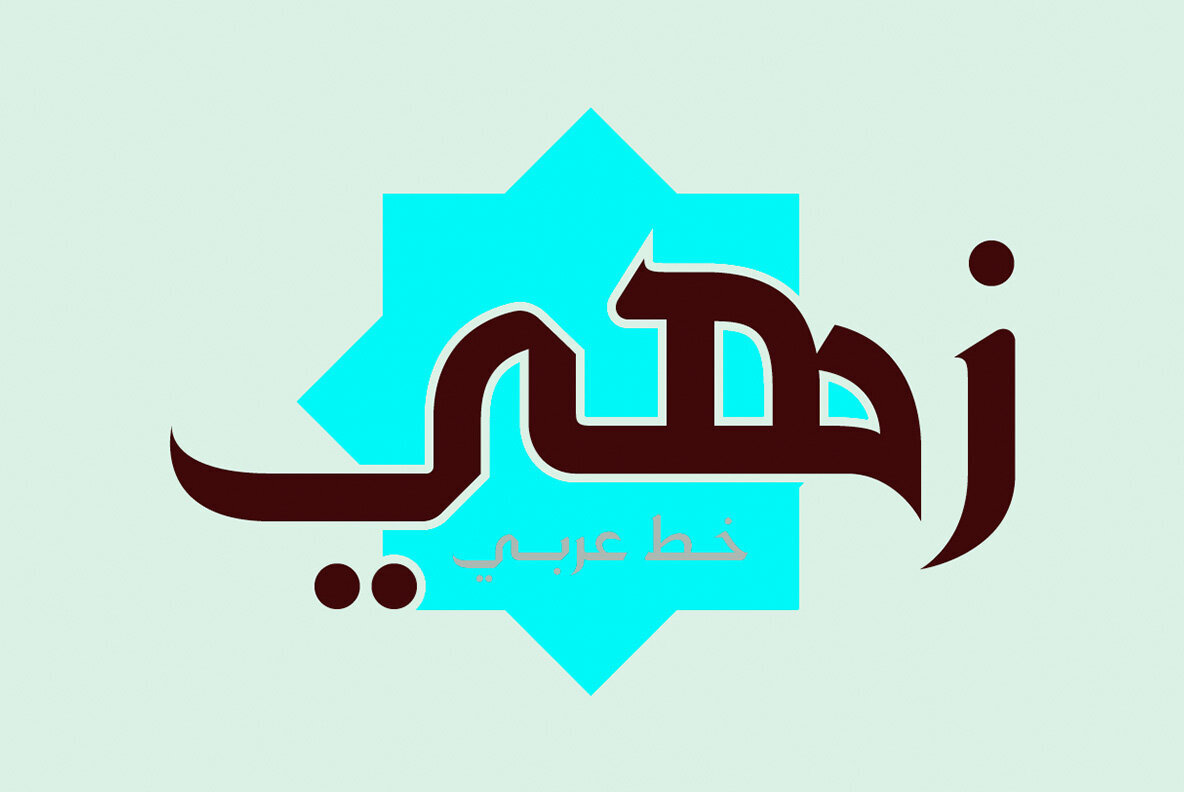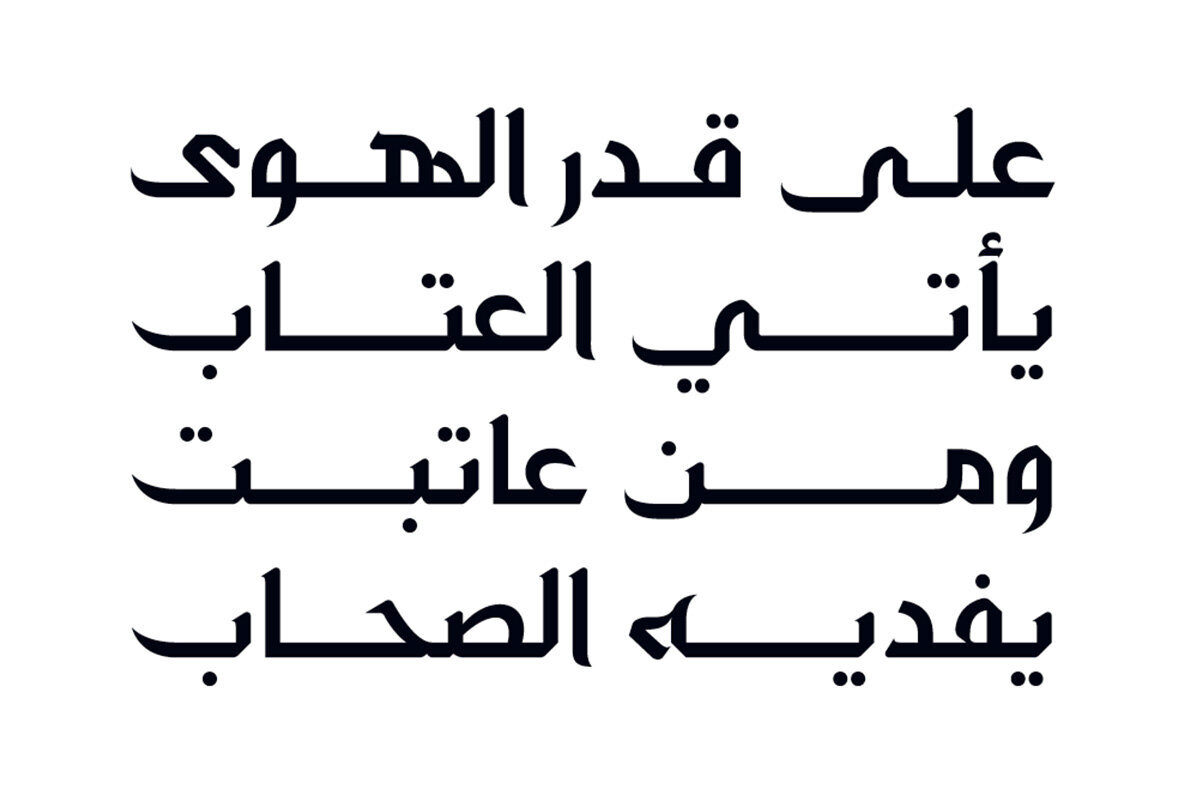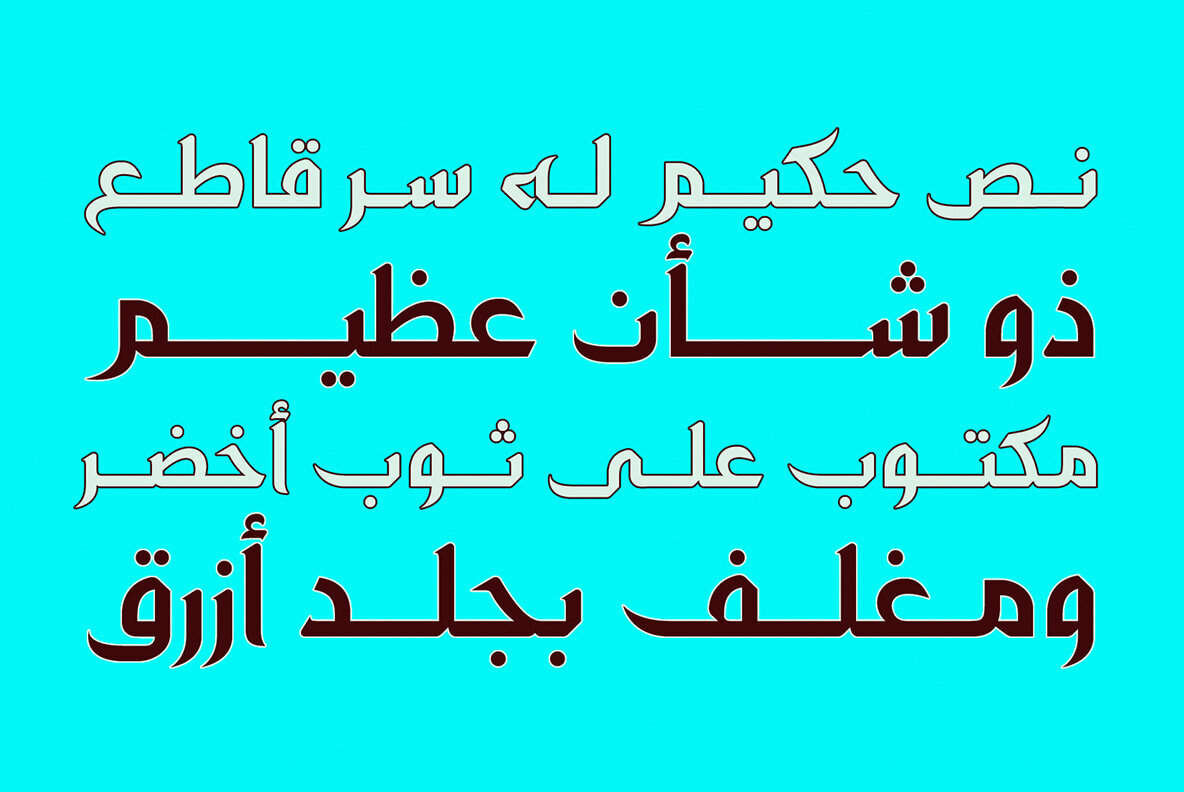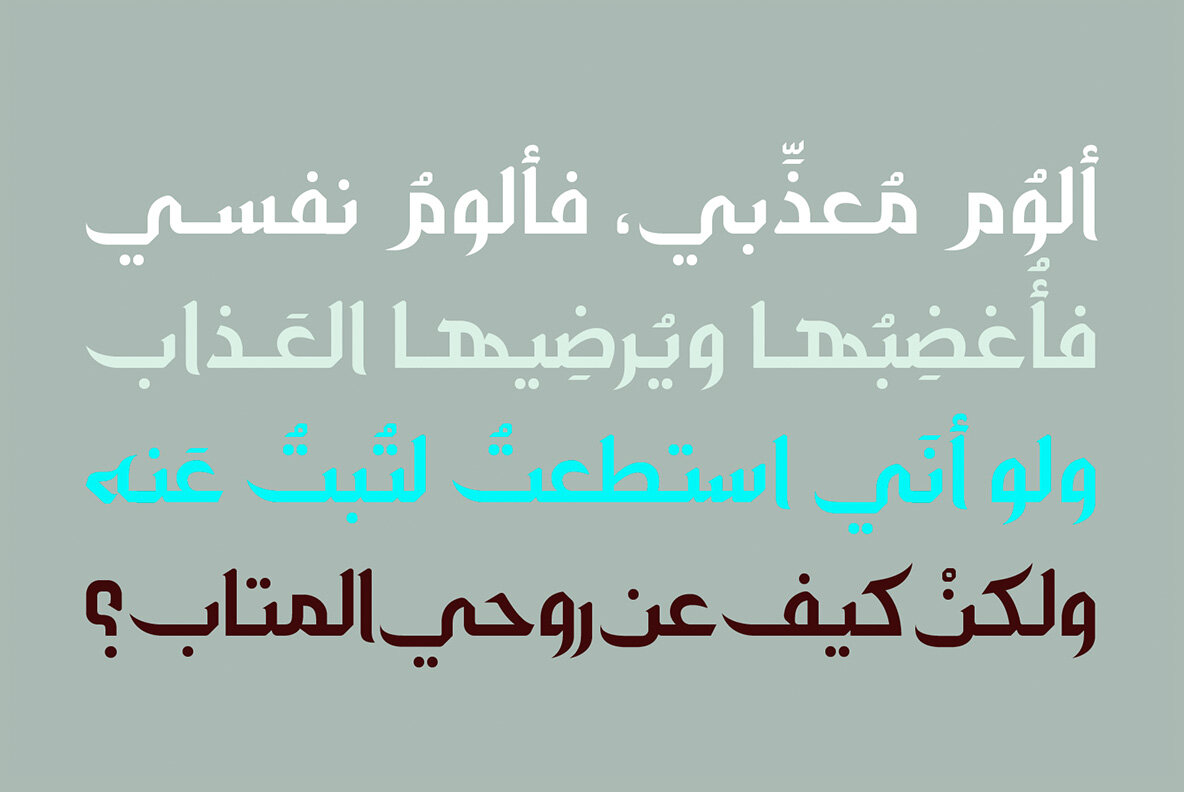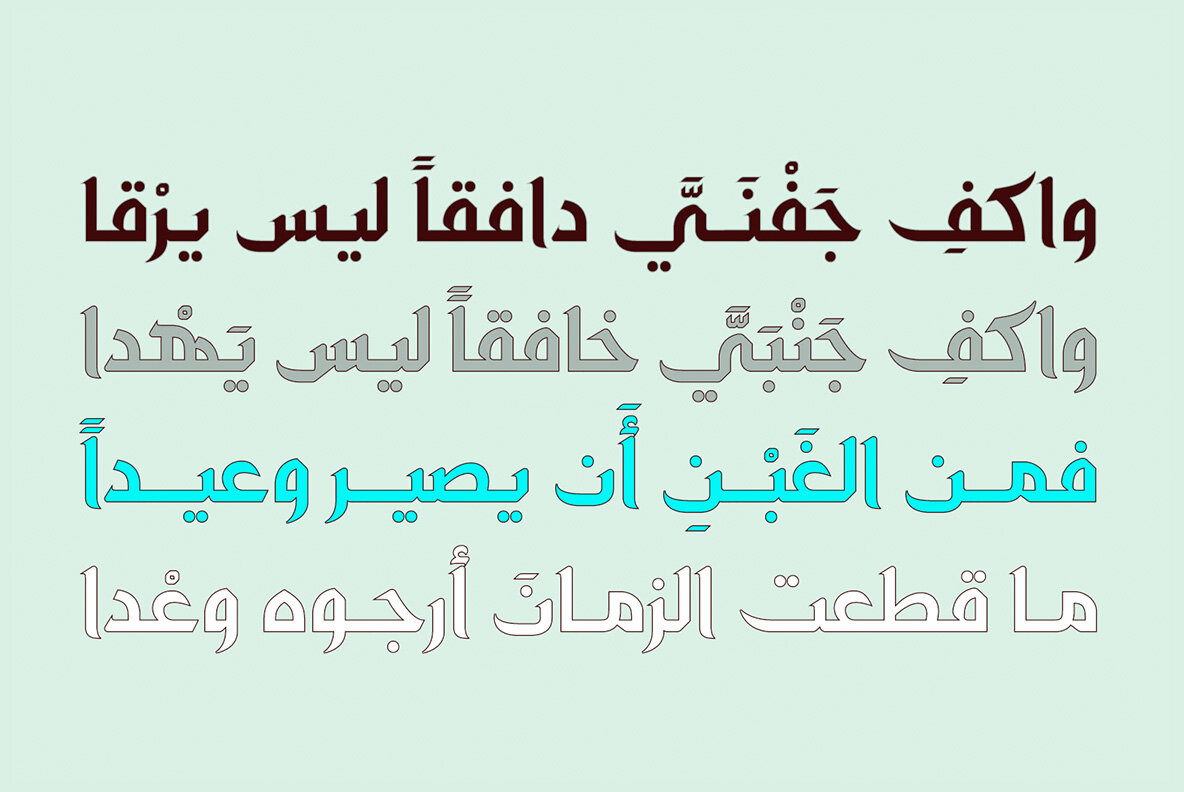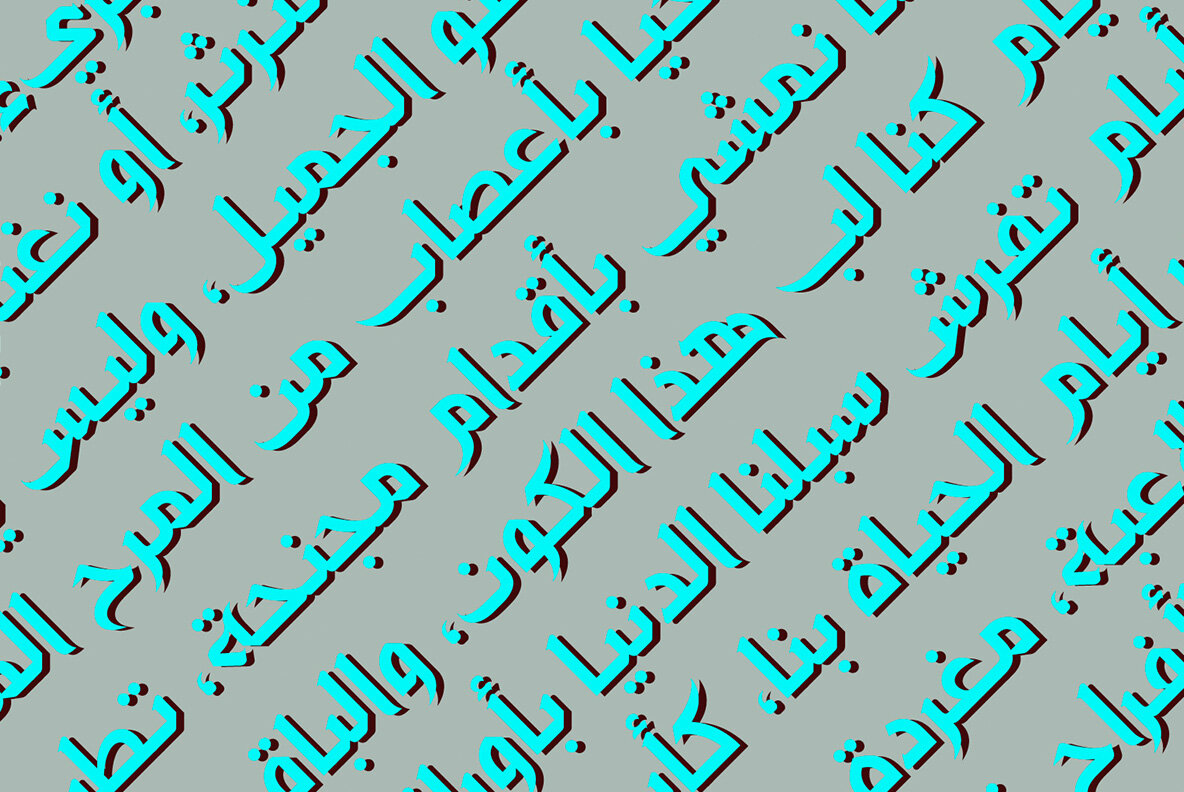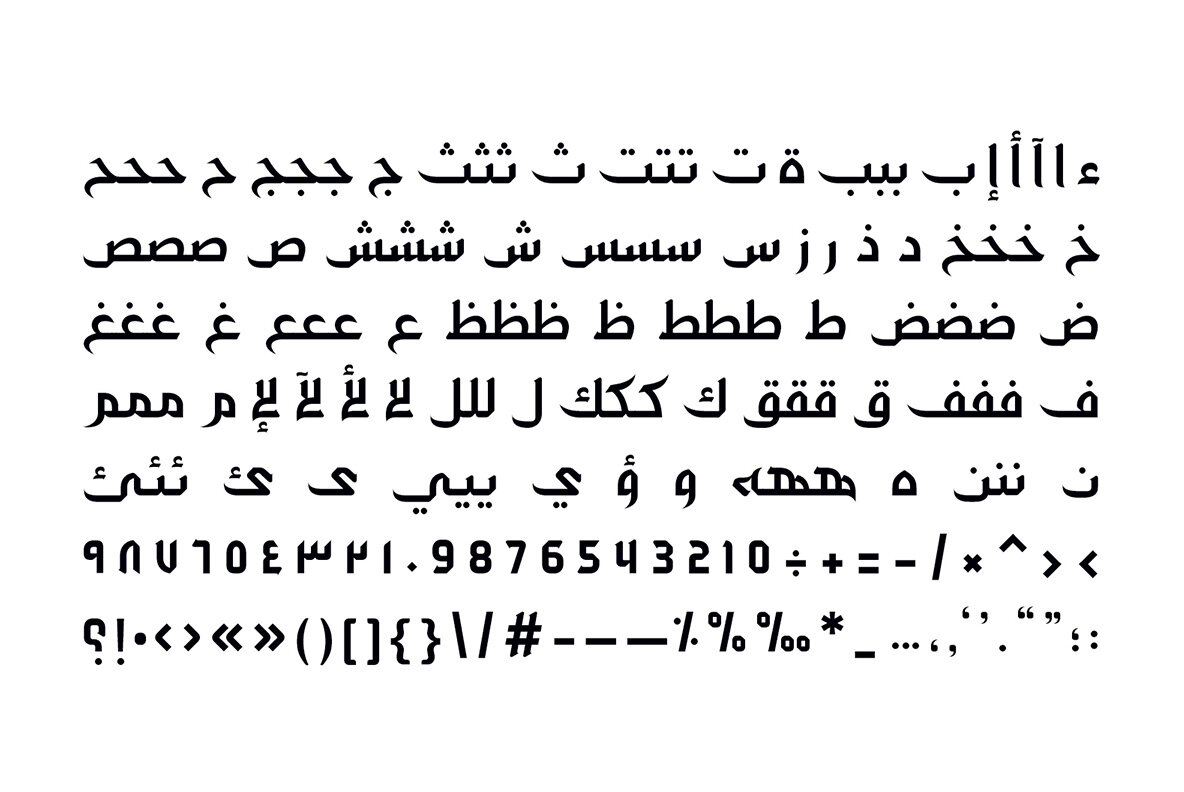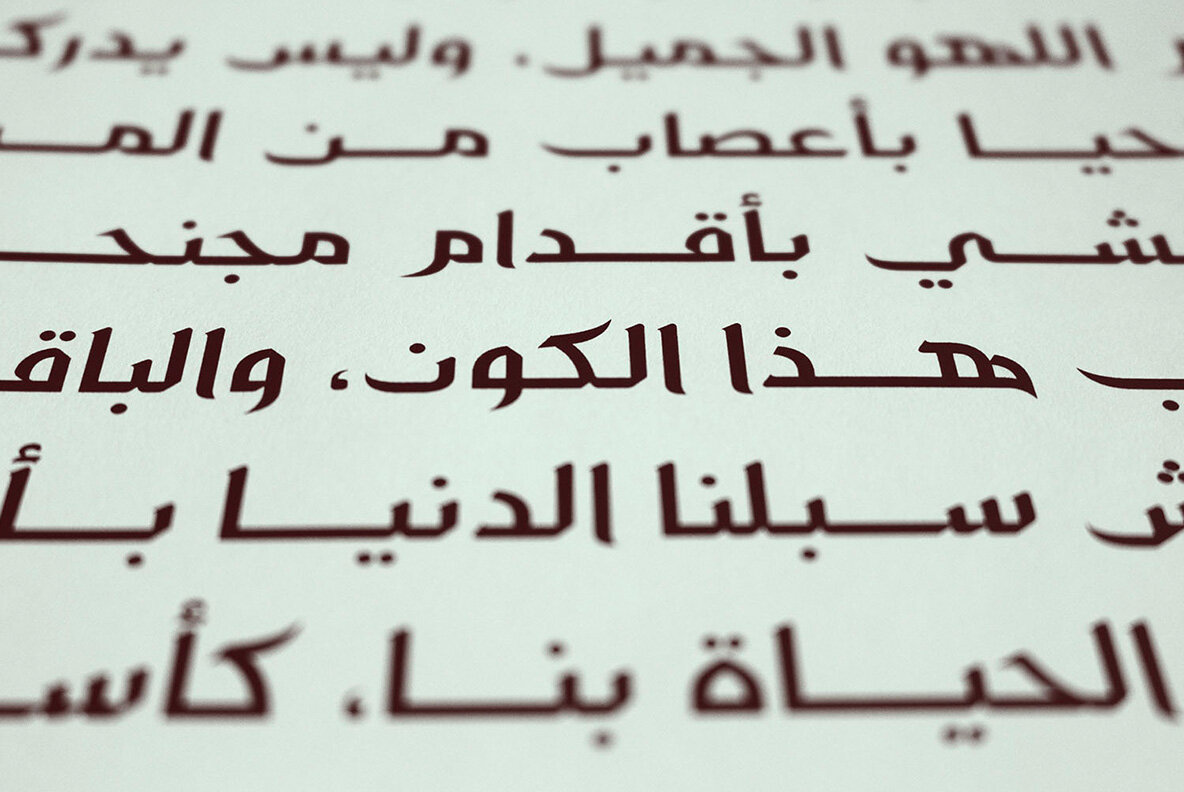
Zahey Font
Zahey
Zahey, translating to 'vivid' in Arabic, encompasses the essence of striking visual impact. This display font combines bold geometric shapes with elegant calligraphic influences, exuding an expressive energy perfect for branding, editorial designs, and digital platforms.Zahey: Vivid Display Font with Bold Geometry
You've probably heard the tired cliche about a picture being worth a thousand words. I've taken the opposite of this phrase quite literally and created Arabic fonts that could turn your words into stunning typographic masterpieces, each worth a thousand pictures!